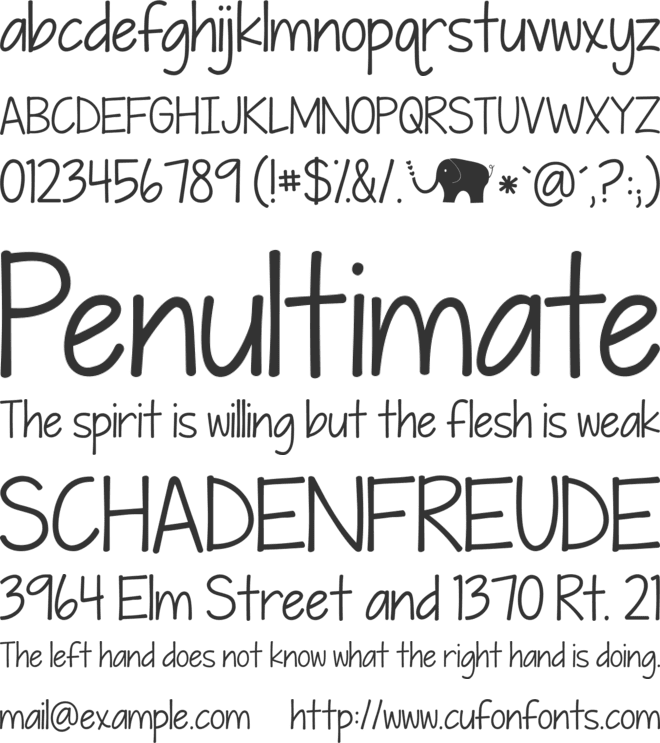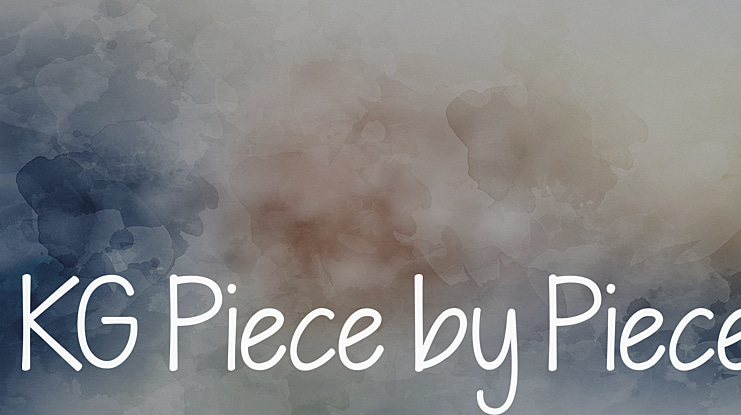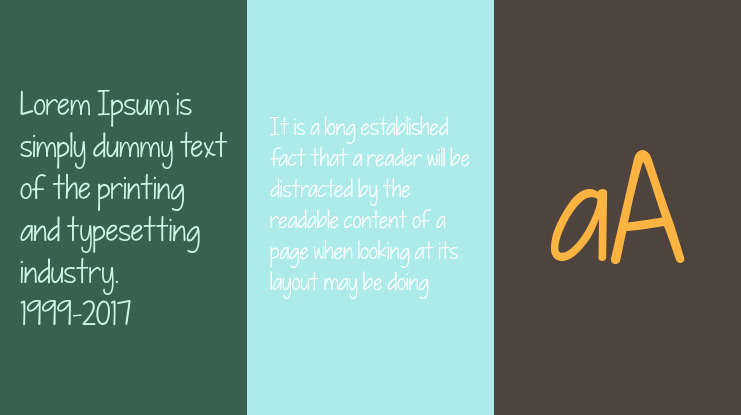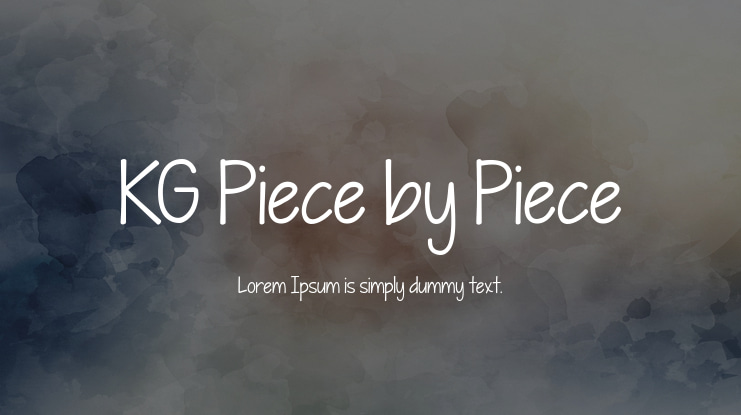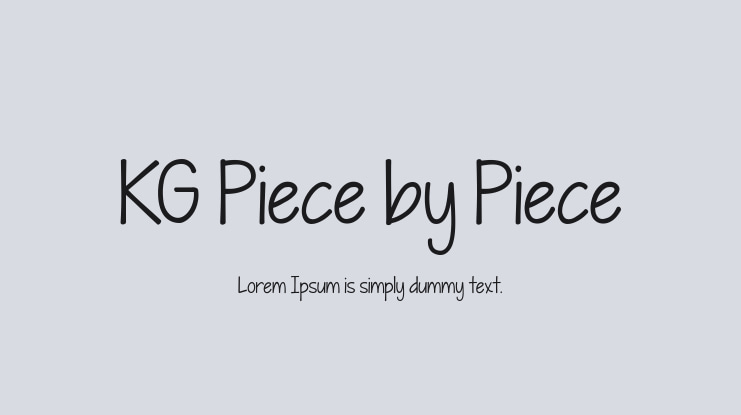
KG Piece by Piece Font
Kimberly Geswein
A neat, upright printed handwritting font. The bar key ||||| contains a cute elephant. Please pay for commercial use at http://kimberlygeswein.com